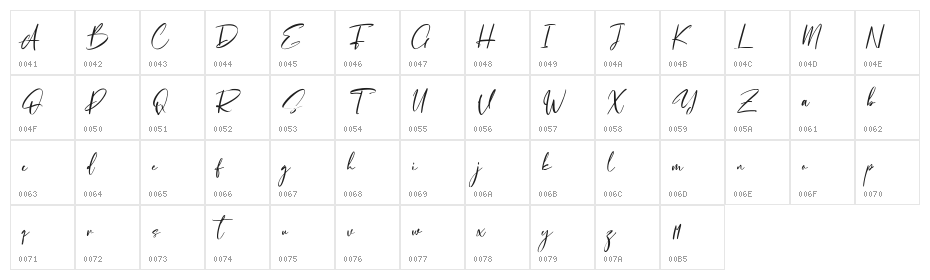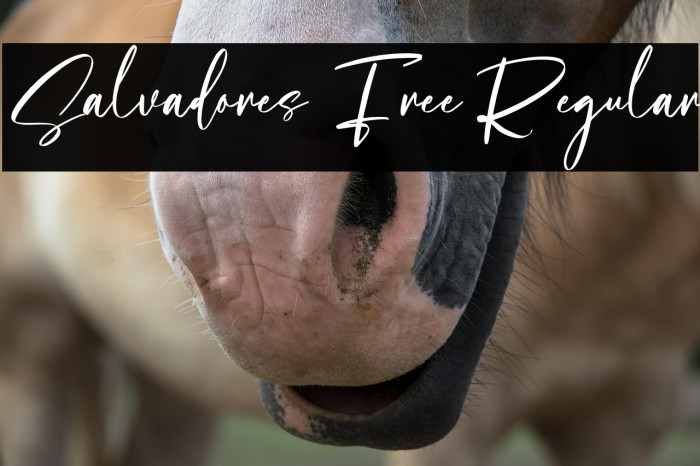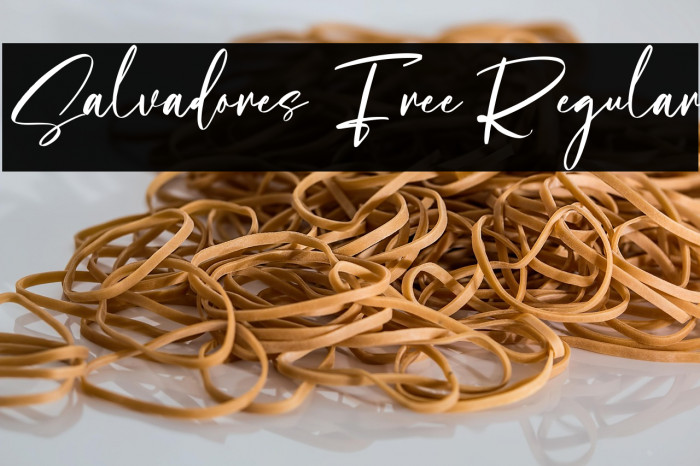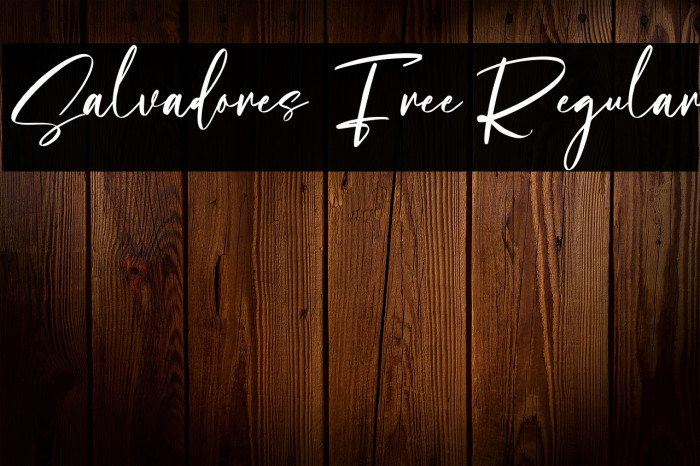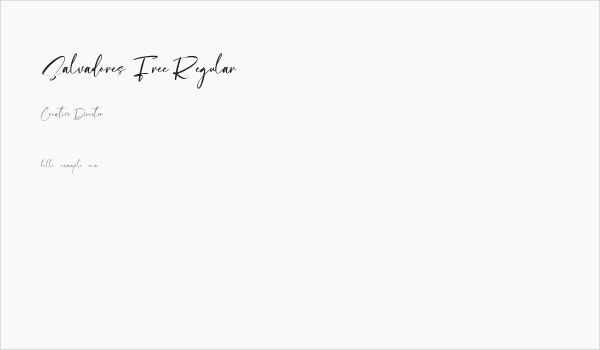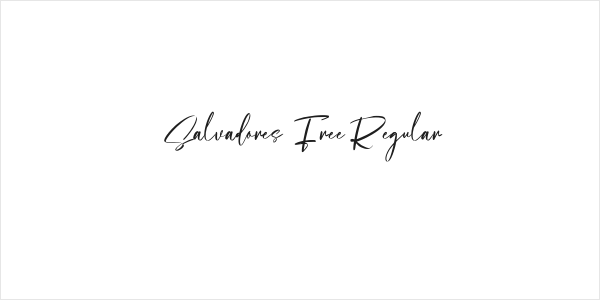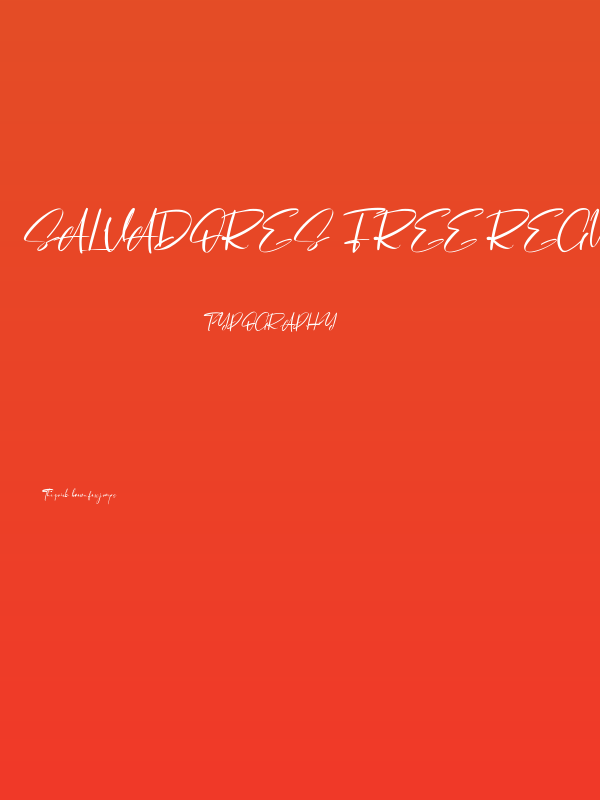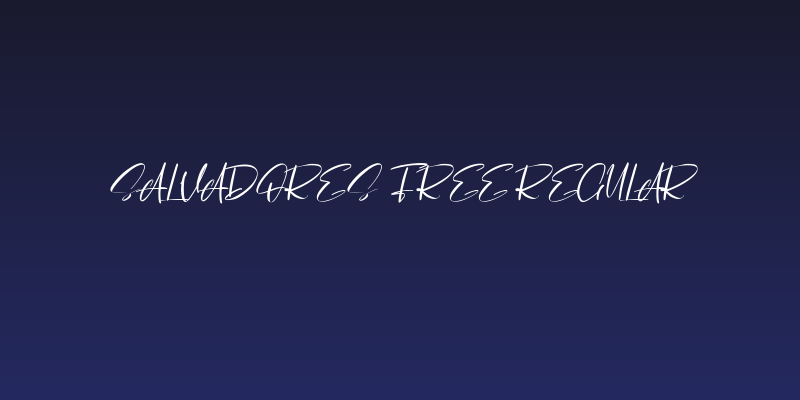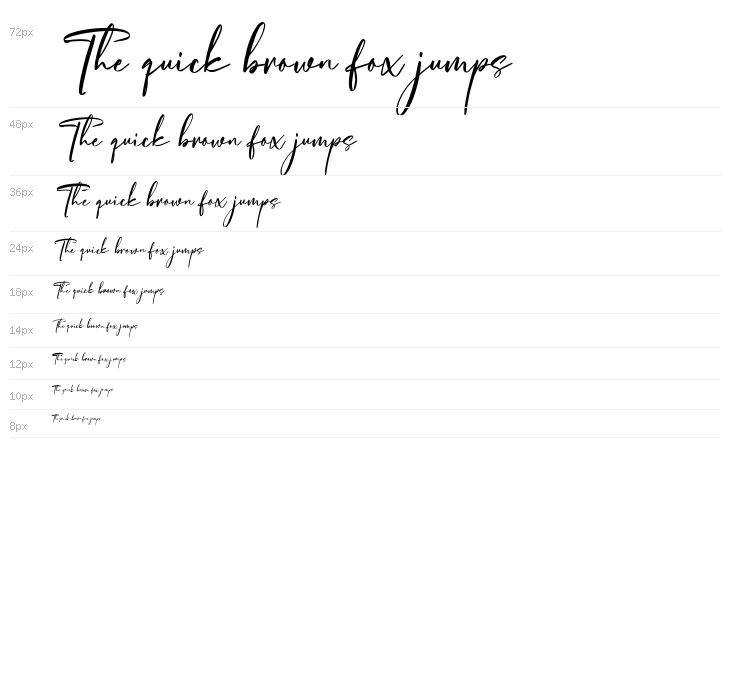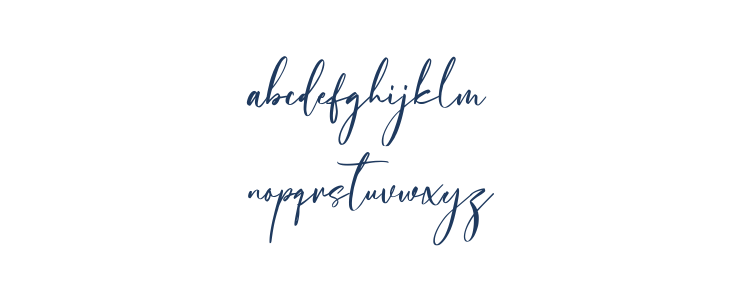
Salvadores Free Regular Font
Salvadores Free Regular Description
This font features a dynamic and fluid script style, characterized by its elegant, flowing lines and a handwritten appearance. The letters are interconnected, creating a seamless and continuous look that mimics natural handwriting. The strokes vary in thickness, adding a sense of movement and grace. The uppercase letters are bold and prominent, while the lowercase letters maintain a delicate and refined quality. This font exudes a sense of sophistication and creativity, making it ideal for projects that require a personal touch.
| Overall Style | Elegant, Handwritten |